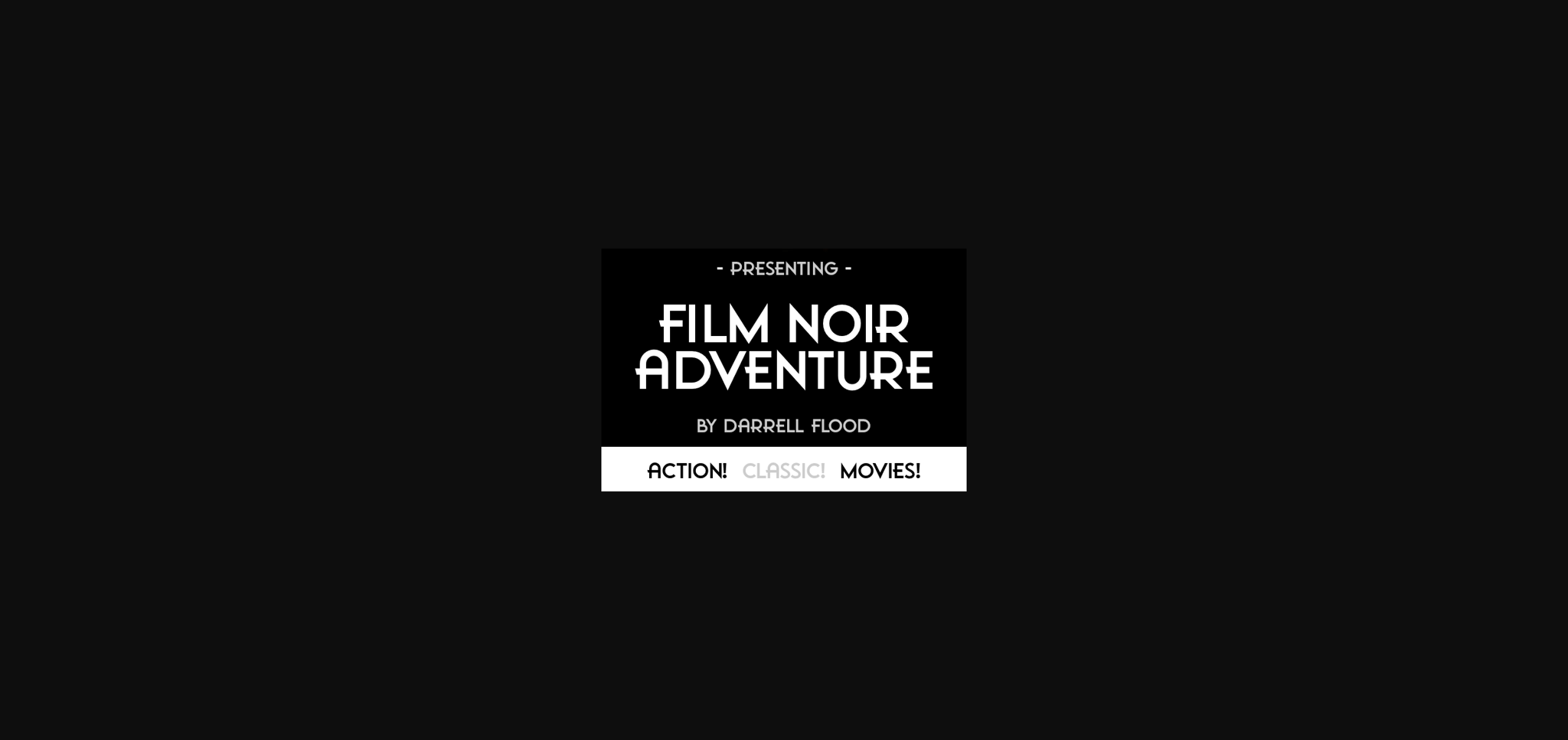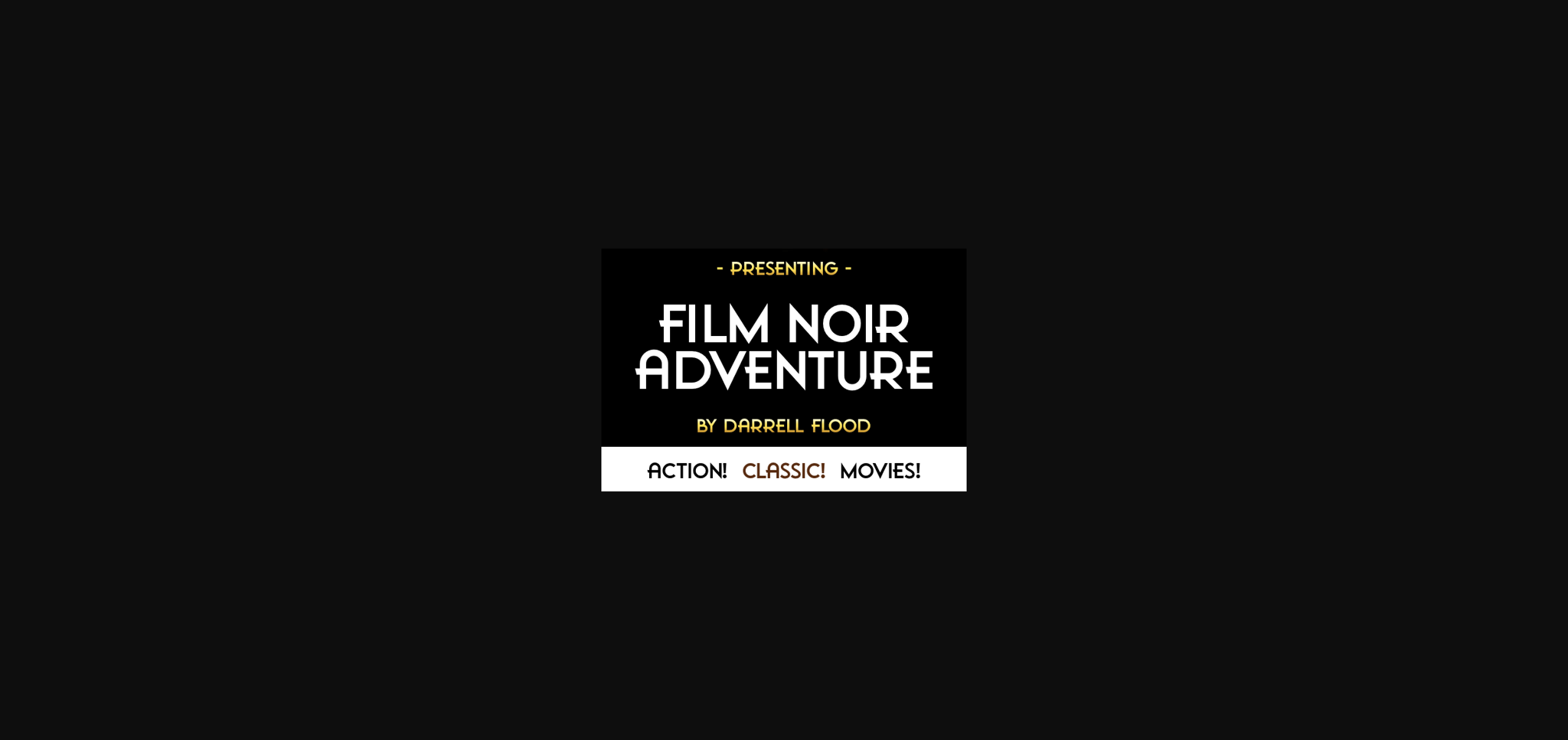
HomeSans Serif FontsFilm Noir Adventure Font Sans Serif Fonts Film Noir Adventure Font FacebookXPinterestWhatsApp 1 of 4 ... Film Noir Adventure Font Poster 2... Film Noir Adventure Font Poster 3... Film Noir Adventure Font Poster 4... About Film Noir Adventure Font Film Noir Adventure is a crisp, stylish vintage font in an old detective movie style. Perfect for period settings, black and white film projects and general all purpose use! DOWNLOAD NOW People also explored Thahira Font Bardella Font Dignhaty Font Simbal Font Spirit Font Poket Notebook Drawing Sketch Lord Font Butterfly Garden Font Reliva Font 383 0 TagsFilm Noir Adventure Font Previous articleSuper Blasters FontNext articleObemada Font LEAVE A REPLY Cancel reply Comment: Please enter your comment! Name:* Please enter your name here Email:* You have entered an incorrect email address! Please enter your email address here Website: Save my name, email, and website in this browser for the next time I comment. Personal Use Free Built Tilting Personal Use Free Read more about this font Miss Love Personal Use Free Read more about this font Baby Mollusca Personal Use Free Read more about this font Evelyne Personal Use Free Read more about this font BLOG Free vs Paid Fonts: Why Investing in Premium Fonts Is Worth It Free vs Paid Fonts: Why Premium Fonts Are Worth It in 2025 The debate of free vs paid fonts continues in the design world. While... Fonts That Capture the Spirit of New York City How to Install and Use Fonts on Windows, macOS, and Web Projects Best Fonts for YouTube Videos: Make Your Thumbnails Stand Out